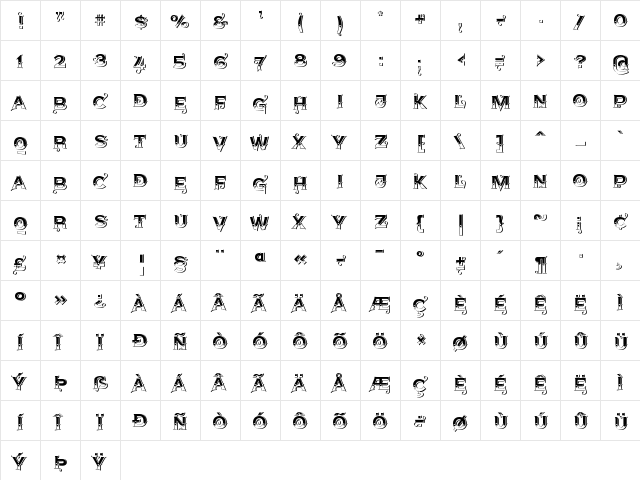
AgreloyS1 Medium
Design Context for AgreloyS1 Typeface
AgreloyS1 is a composed and adaptable typeface that performs quietly and consistently across a wide range of design contexts.